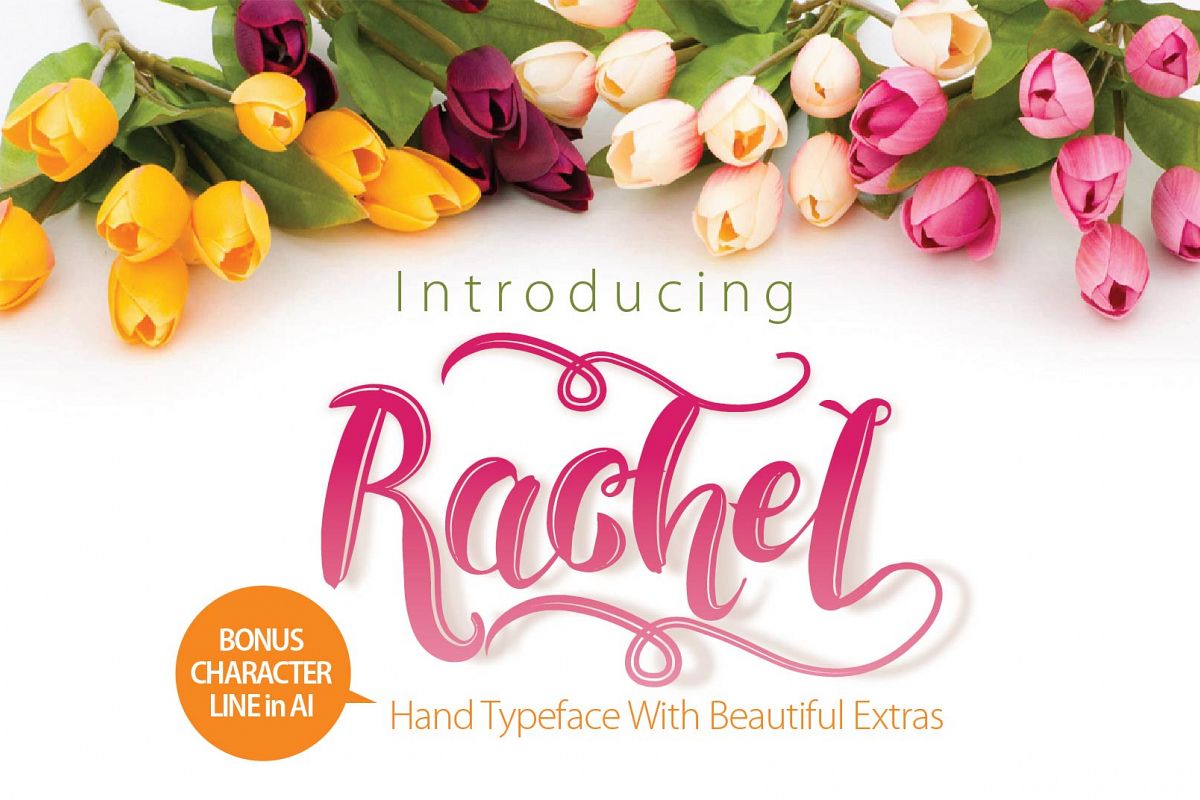
RACHEL
Rachel.
Rachel is a beautiful hand typeface that comes with a set of Beautiful extras. Highly Suitable for a variety of media design , logo, fashion, poster and all design product
Numerals & Punctuations
Accents (Multilingual characters)
extras